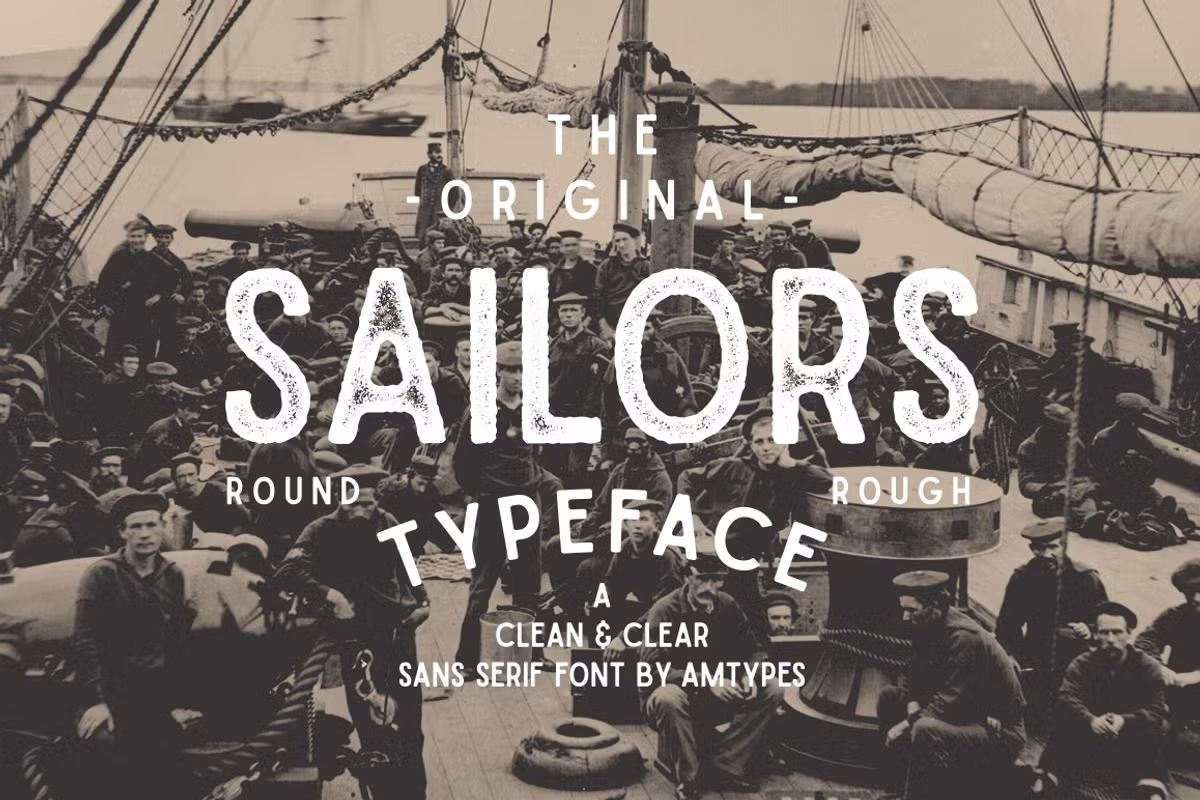
Sailors Free Download
Sailors Font Free Download
Sailors Font Free Download is a charming and creative typeface designed to bring a nautical, adventurous feel to your designs. Featuring flowing, hand-drawn letterforms and a vintage touch, this font is perfect for creating logos, posters, branding materials, social media content, and more. Its relaxed, organic style makes it ideal for projects related to travel, adventure, coastal themes, and creative branding. Whether you’re designing for a maritime brand, a casual event, or a creative campaign, Sailors Font Free Download lets you explore its unique style in personal projects before purchasing a commercial license. Add a touch of whimsy and character to your designs with this beautifully crafted font.